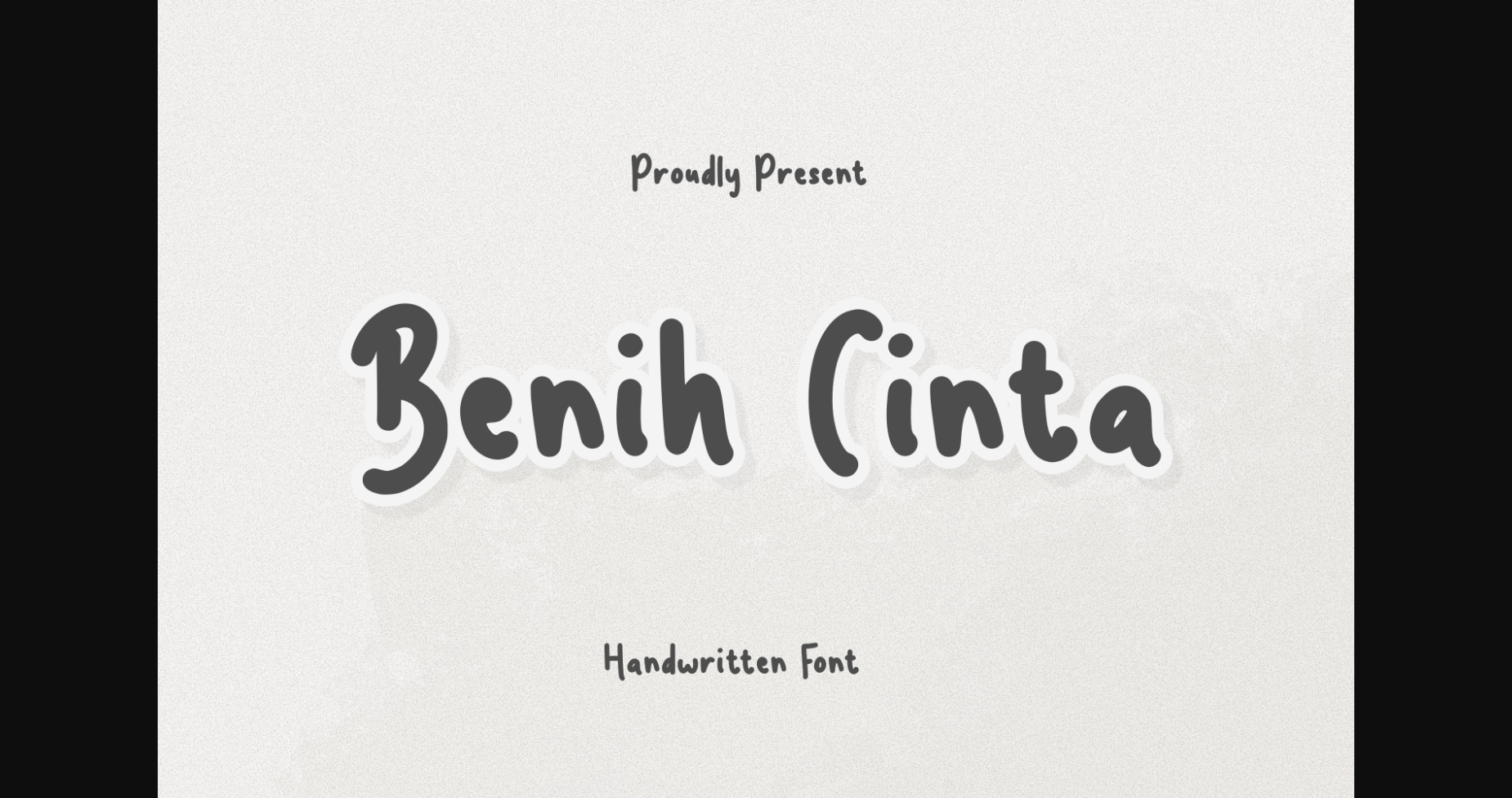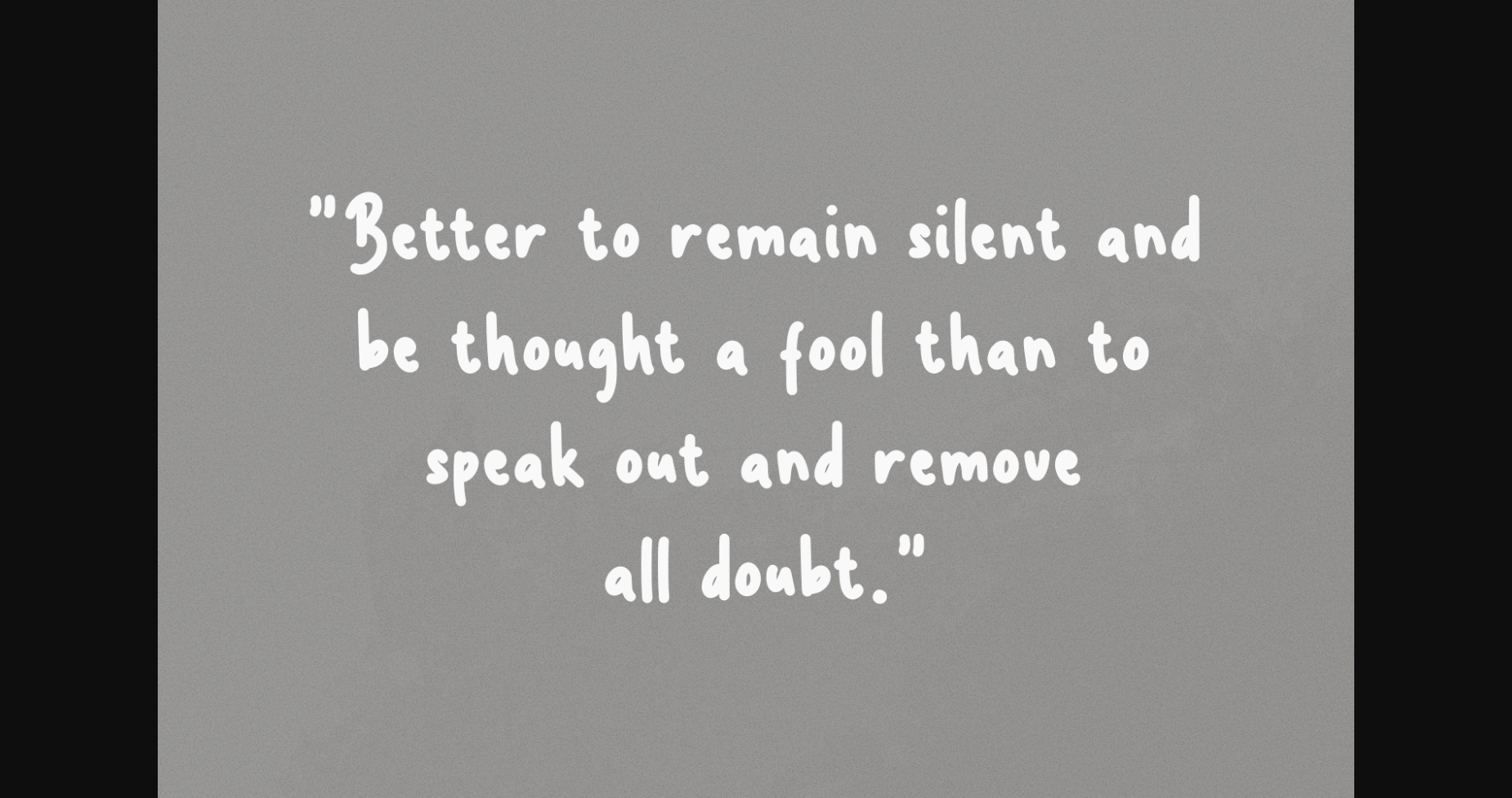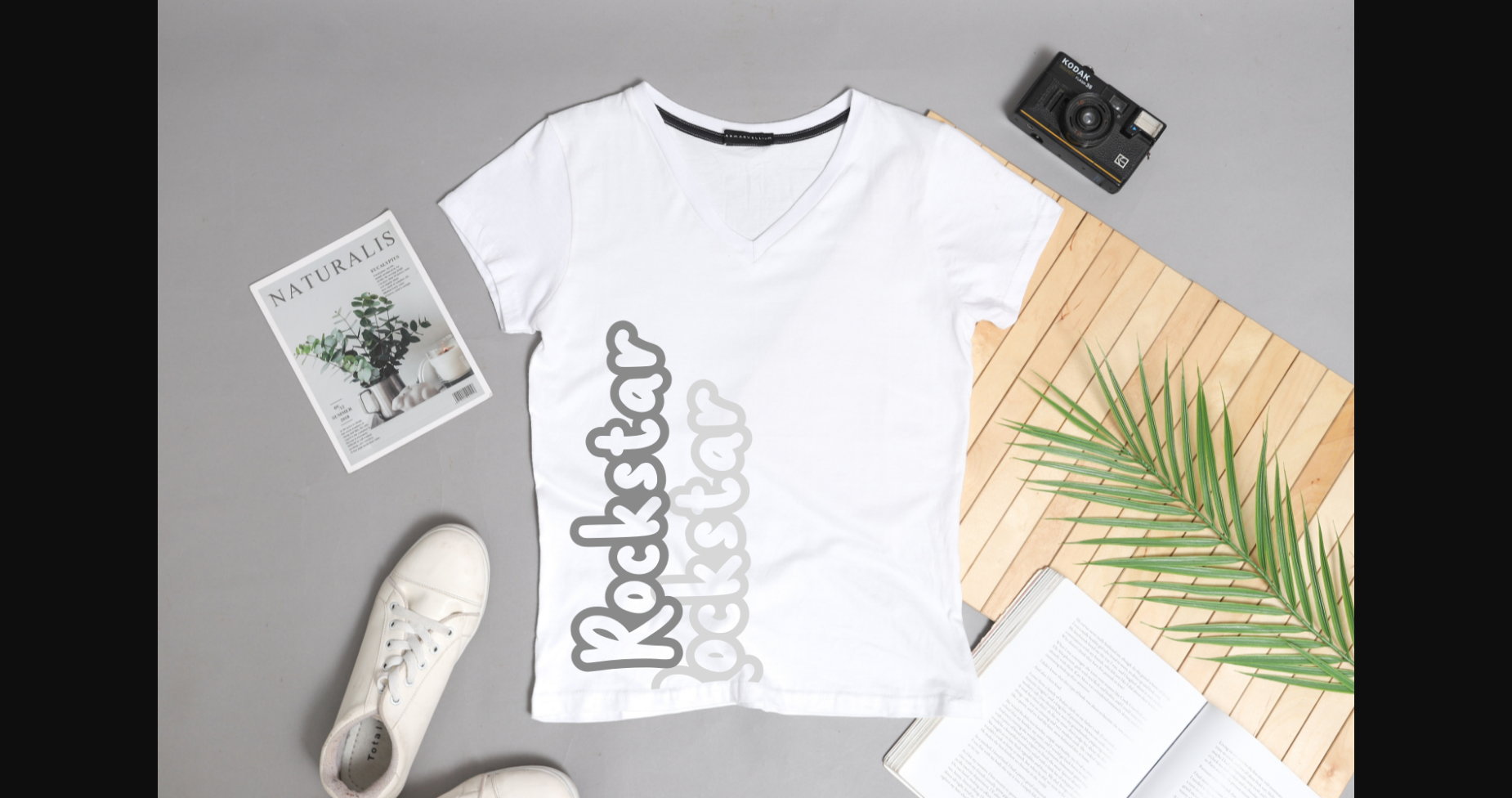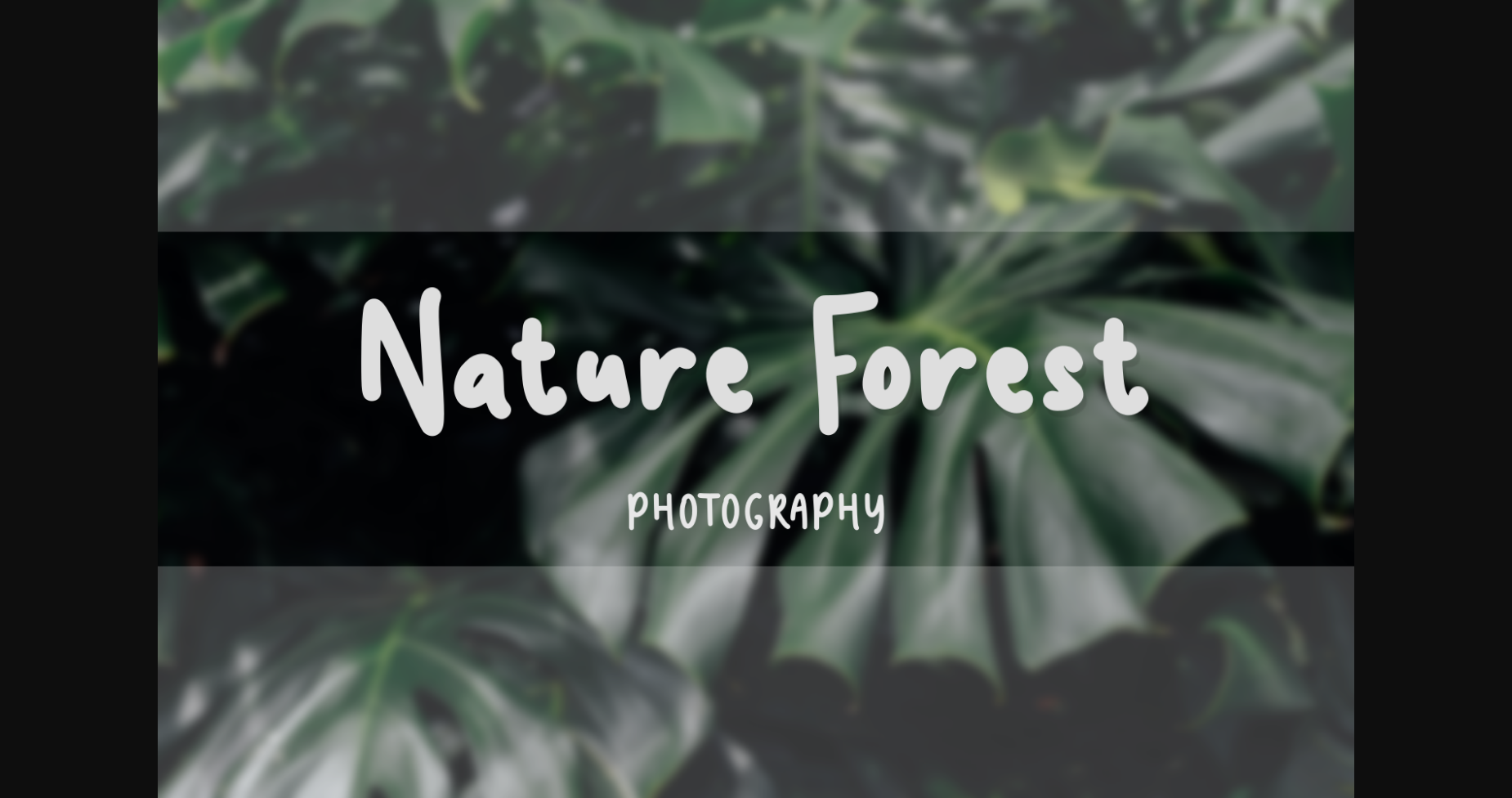
About Benih Cinta Font
Benih Cinta is a natural handwritten sans serif font. Add it to your logos, labels, branding, invitations, websites, quotes, and more, and it will boost your designs and make them a true standout!